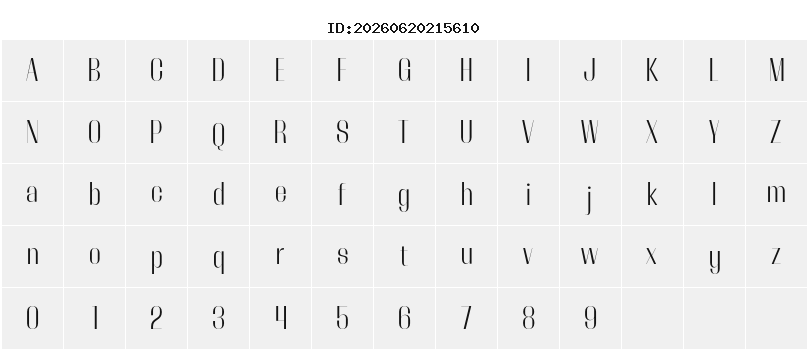
Thunder Light Preview
• Font Name: Thunder Light
• Designer: Rajesh Rajput
• Manufacturer: Rajesh Rajput
About Thunder Light.otf
Thunder Light.otf is a modern, elegant sans-serif font designed for ultimate readability and visual harmony. Perfect for branding, headlines, web design, and print materials.